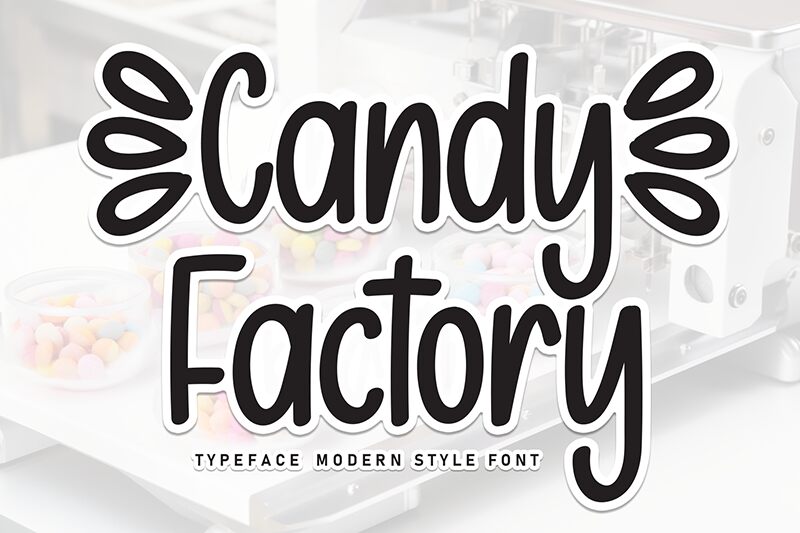
Candy Factory
Candy Factory font by Scratchones is a handwritten font with a condensed but youthful and cheery style. Its letters feature round shapes, neat enclosures, and smooth edge strokes that make for a casual yet professional addition to your design. The approachable atmosphere it reflects makes it particularly attractive within plenty of modern art scenes.
This free handwritten font can be used in page titles and headings as well as packaging, posters, invitations of any kind, digital ads or printed ones, labels and tags, stationery designs like greeting cards or magazine covers.